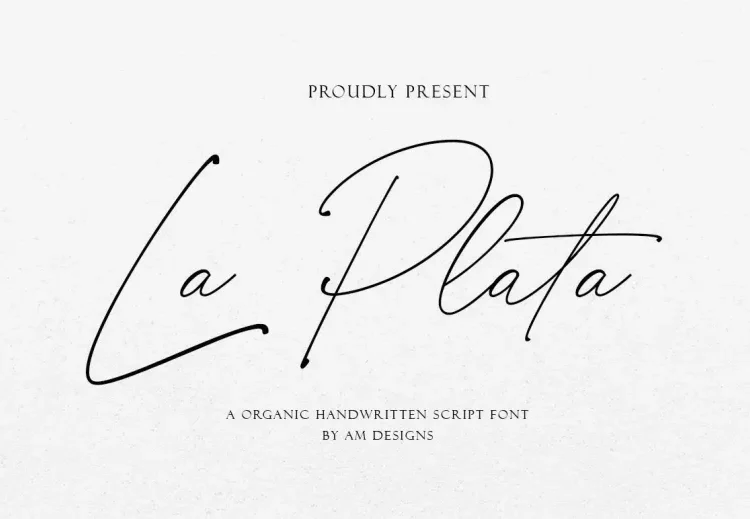
La Plata Font
La Plata is an elegant and organic handwritten typeface designed to add a personal touch to a variety of creative projects. Its flowing, natural style makes it perfect for applications such as wedding stationery, handmade logos, brand names, website designs, and social media quotes.
With its PUA encoding, La Plata offers easy access to its full range of glyphs, swashes, and characters, allowing for versatile and expressive typography.